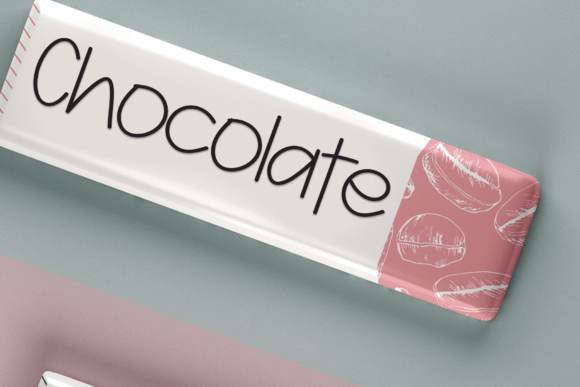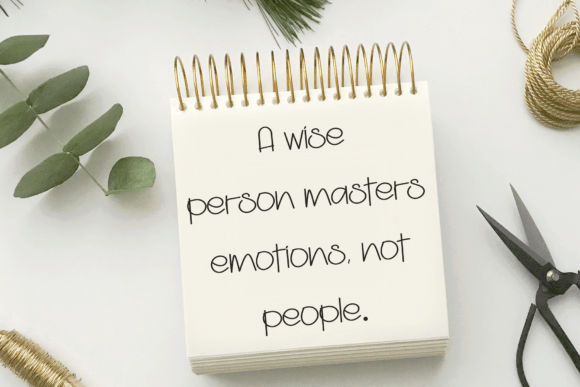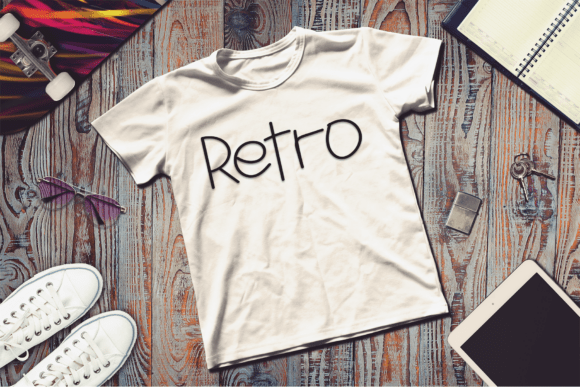
Introduction to Honey Notebook Font
Introducing a delightful handwritten display typeface that radiates charm and friendliness.
Perfectly crafted for a whimsical, fun appeal, the font naturally enhances the warmth in wedding invitations, greeting cards, or any design seeking that playful dash of creativity Elevate your design narrative with this lovely font and bring smiles to every reader’s face.